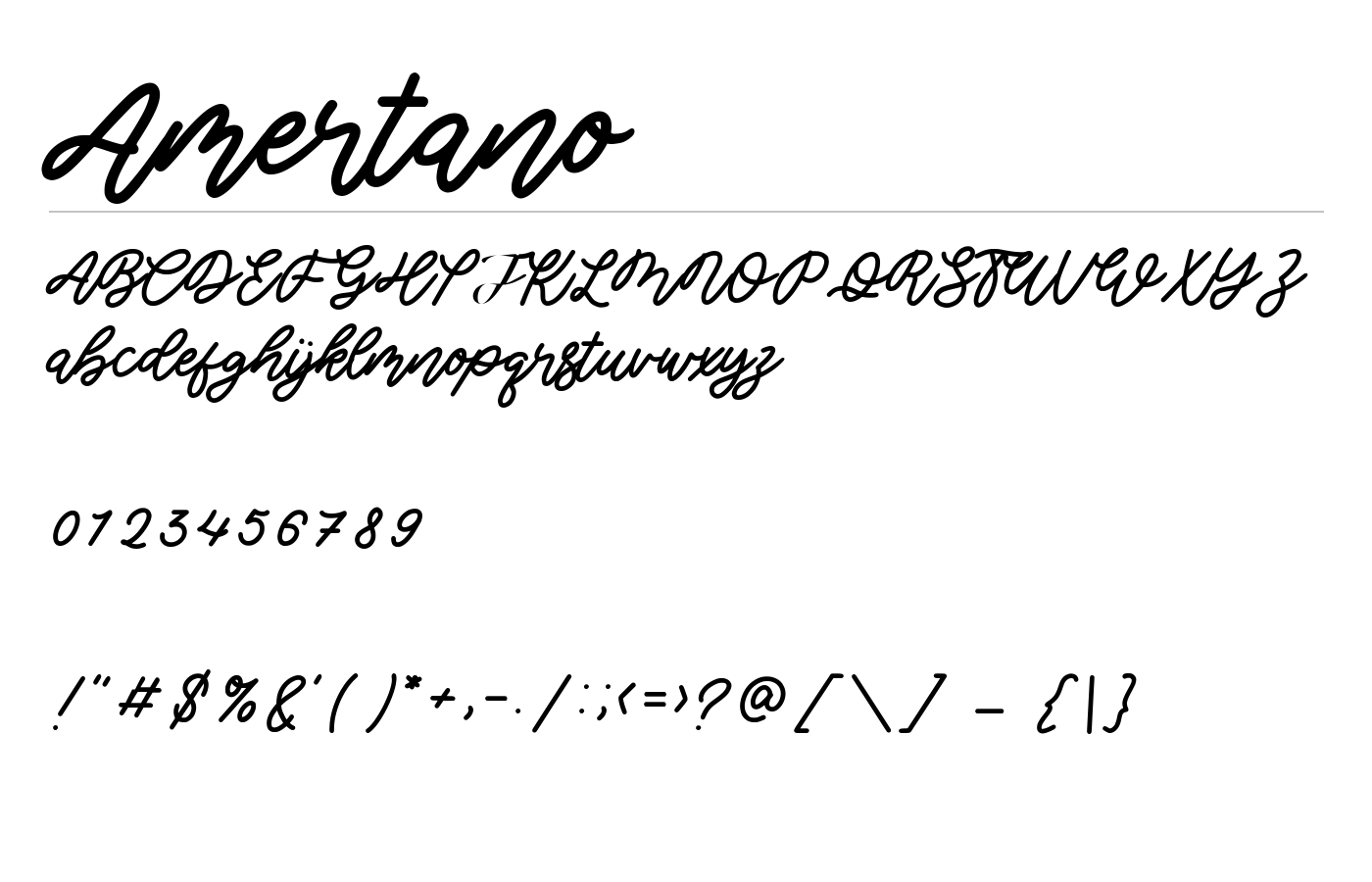
Amertano is a lively script font with a smooth, handwritten style that blends casual elegance with readability. Its flowing letterforms and moderate slant give it a friendly, approachable personality, making it ideal for creative branding, invitations, and personal projects where a warm, stylish touch is desired. This font works well in headlines and logos, adding a handcrafted feel that resonates with artistic and modern aesthetics.
Amertano Font
About Amertano Font